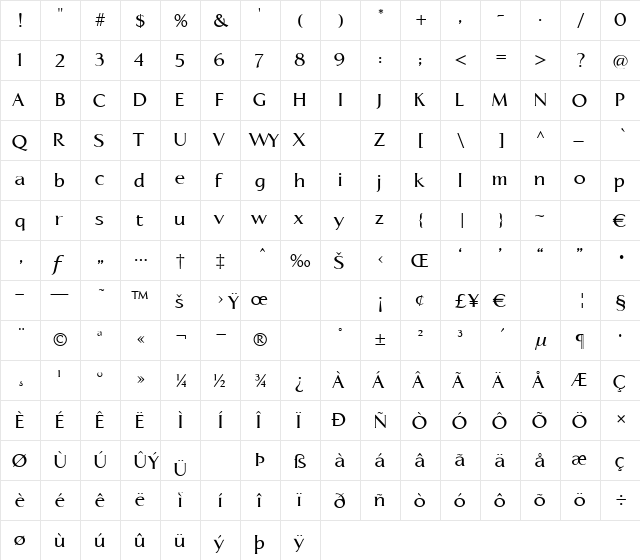
Aperto SB SemiBold
Design Context for Aperto SB Typeface
Aperto SB offers clean, dependable letterforms without strong stylistic allegiance, making it a practical choice for designers who need flexibility. The heavy weight commands attention and anchors typographic hierarchies.